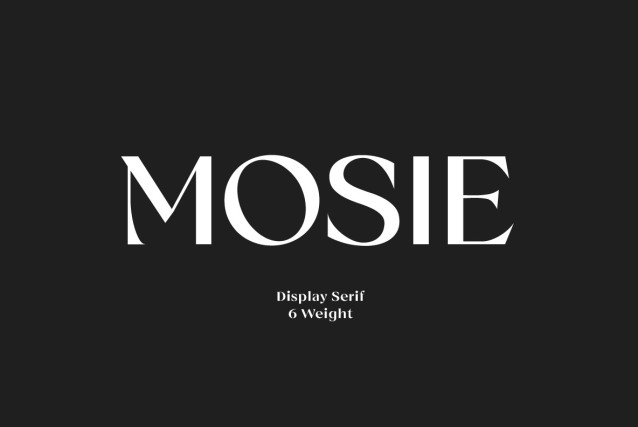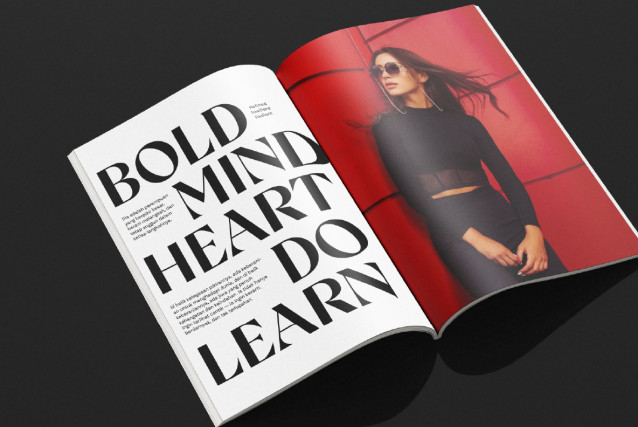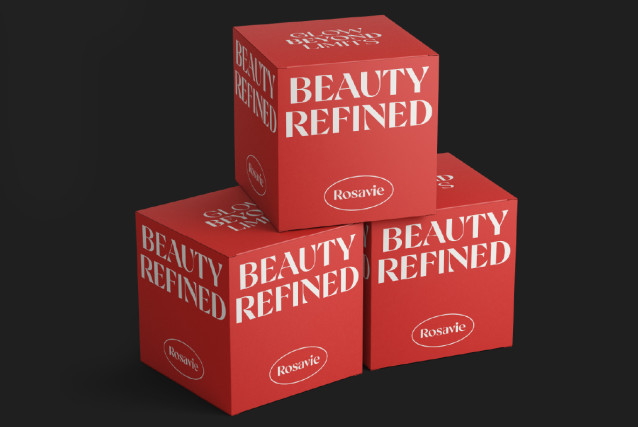
Mosie Font
Mosie Font is an elegant editorial-style serif typeface, designed with high contrast and refined details that bring a luxurious and modern feel. Available in 6 weights from Light to Black, Mosie is ideal for branding, editorial layouts, premium packaging, and visual design that values aesthetics and professionalism. With graceful letterforms and balanced proportions, Mosie delivers an exclusive and sophisticated impression to any creative project.
Features:
• 6 Weights: Light, Regular, Medium, Semi Bold, Bold, Black
• Uppercase & Lowercase
• Numerals & Punctuation
• Multilingual Support